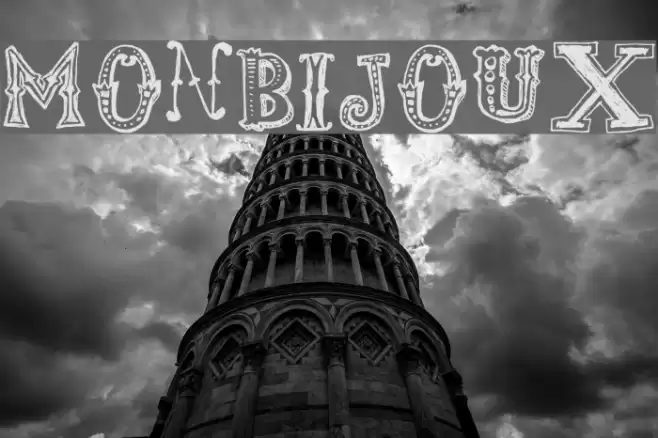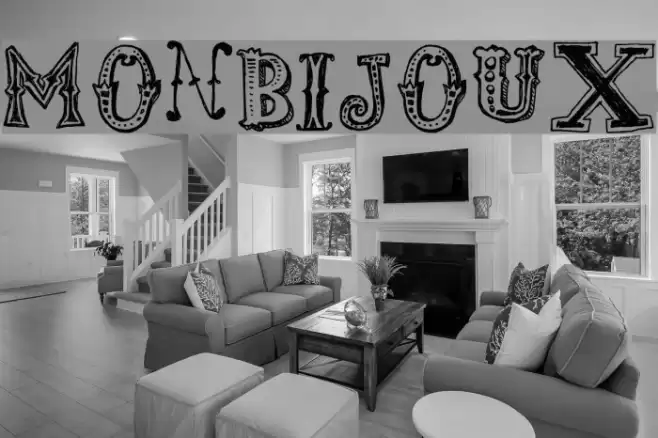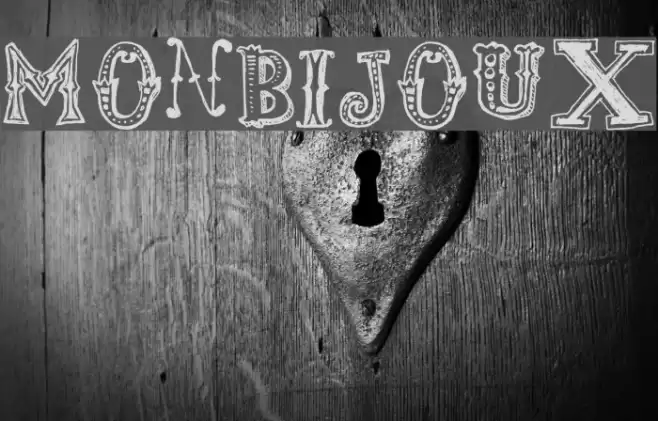
monbijoux Font
monbijoux Description
This font is a highly decorative and eclectic typeface, featuring an array of intricate patterns and embellishments within each letterform. The uppercase letters are bold and ornate, with each character showcasing unique design elements such as stars, stripes, and floral motifs. The style is reminiscent of vintage circus or carnival posters, with a playful yet sophisticated flair. The font's artistic details make it stand out, capturing attention with its elaborate and whimsical design. It is ideal for projects that require a touch of nostalgia and creativity.
A decorative and eclectic font with intricate patterns and vintage flair from Uncategorized fonts.
- Proposed Projects: Ideal for posters, event invitations, branding for creative businesses, and decorative headlines.
- Overall Style: Vintage, Decorative
- Use Case: Headlines, Posters, Branding